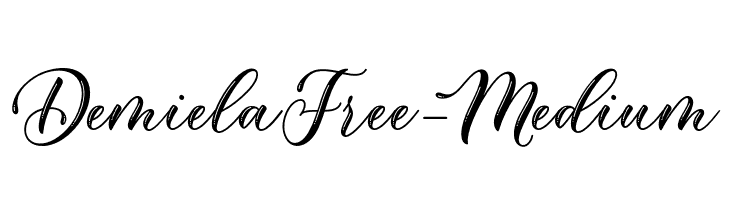
A dynamic, flowing script font with elegant cursive letterforms.
A charming and elegant script font with flowing, cursive letters.
An elegant and flowing script font with a refined, handwritten style.
A playful and elegant script font with flowing, cursive letters.